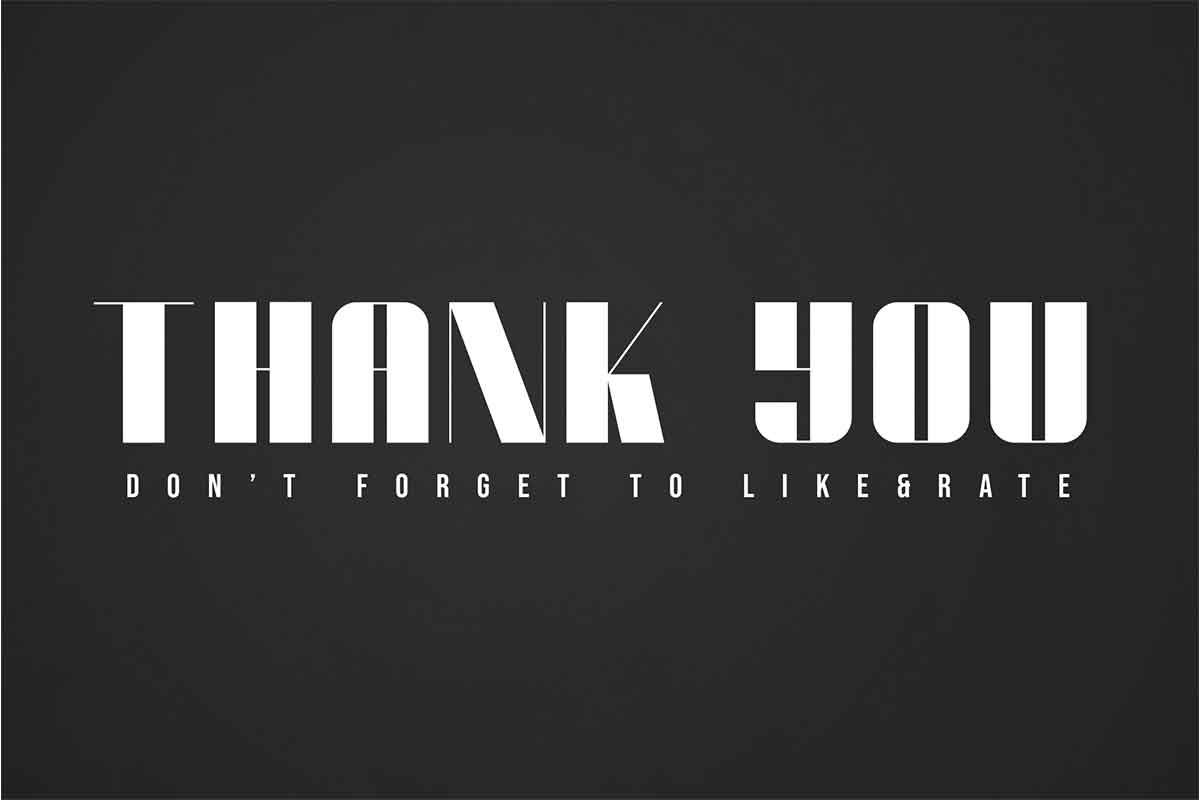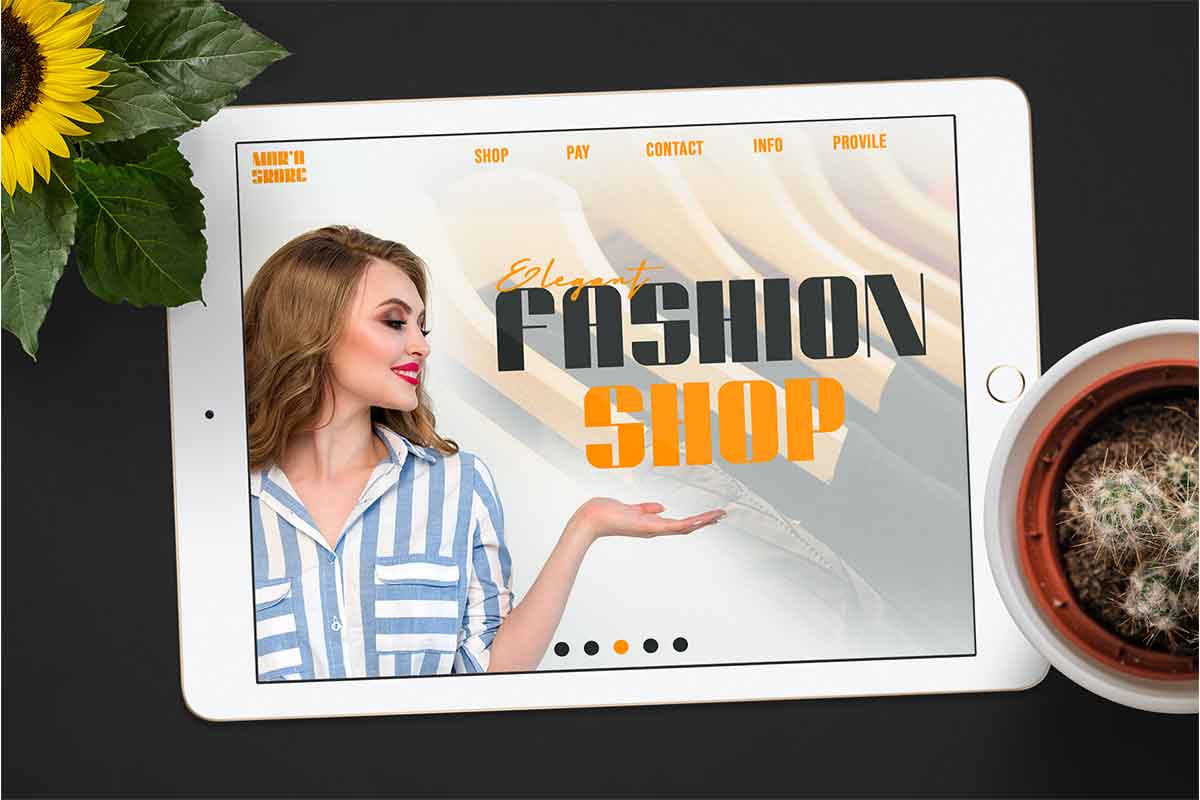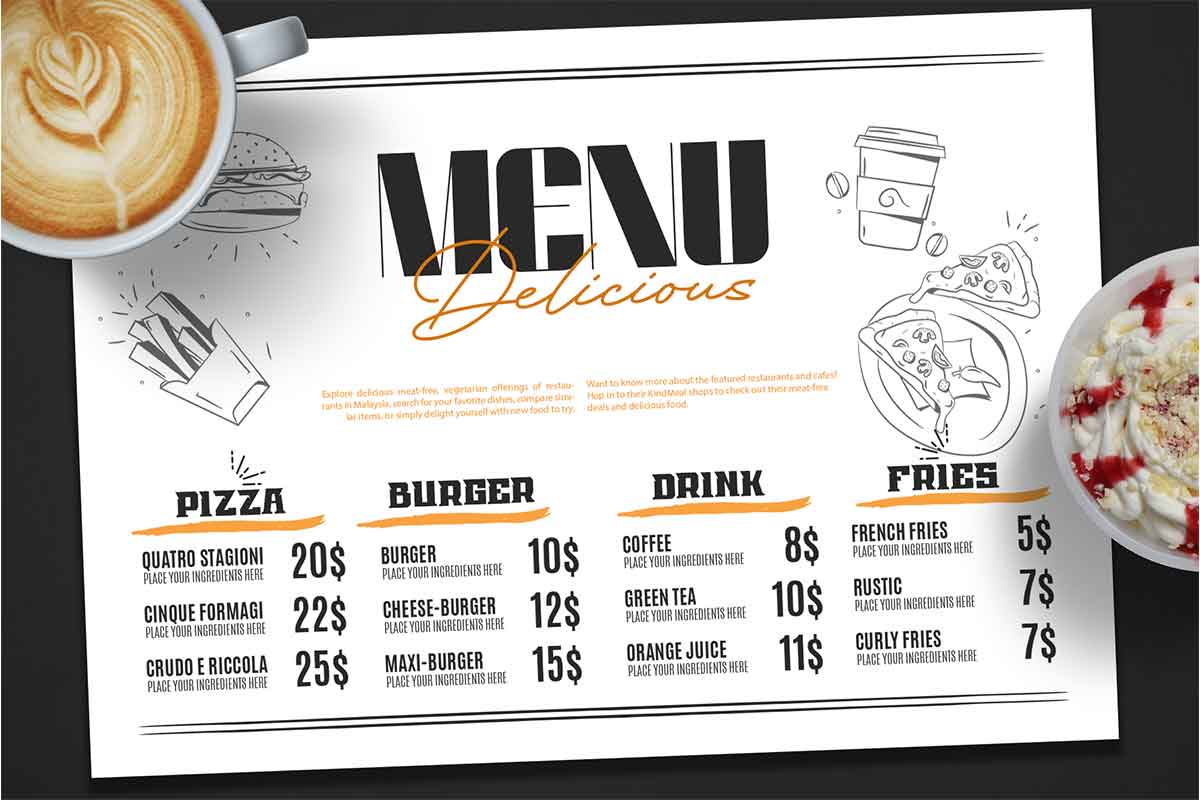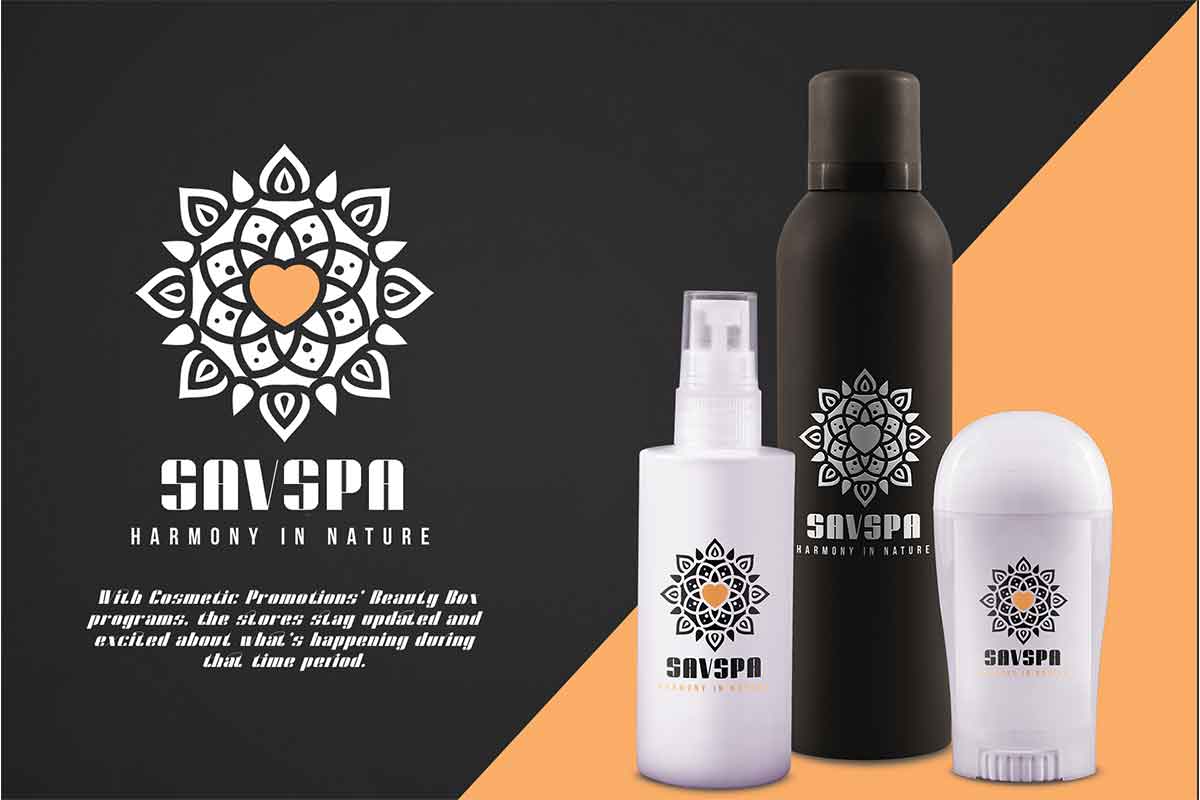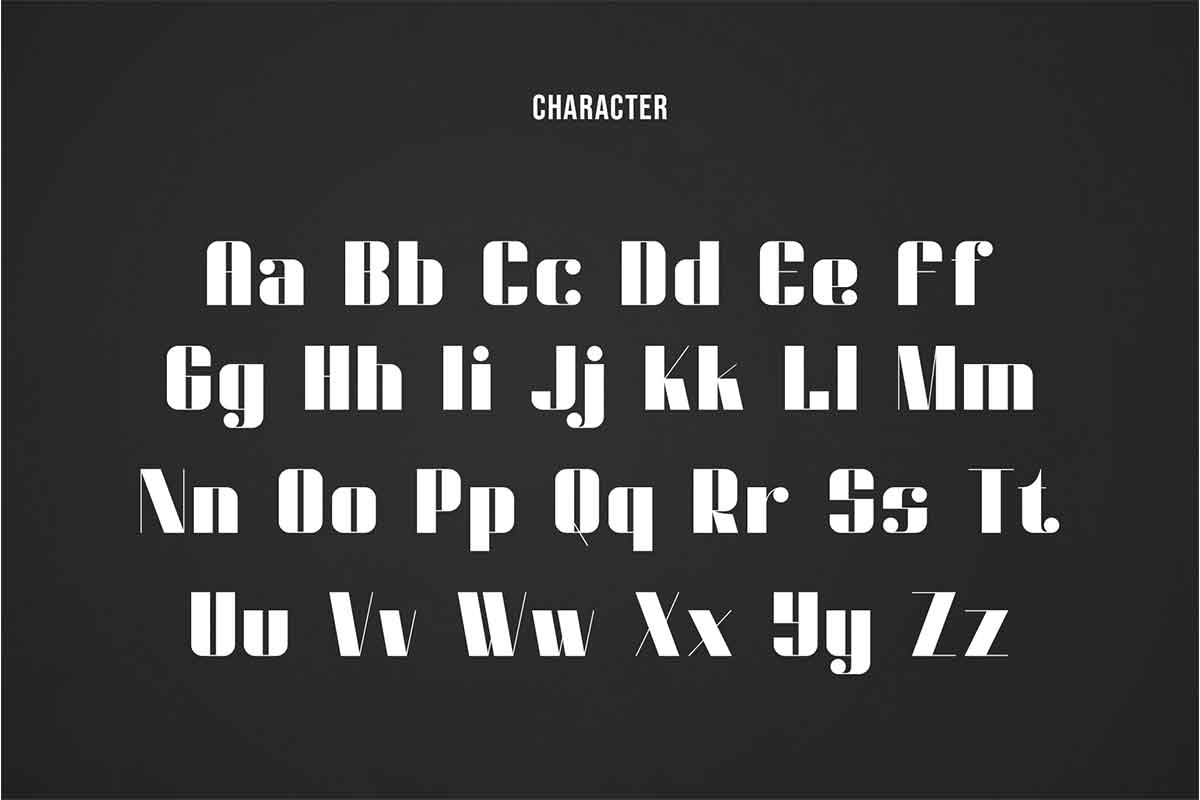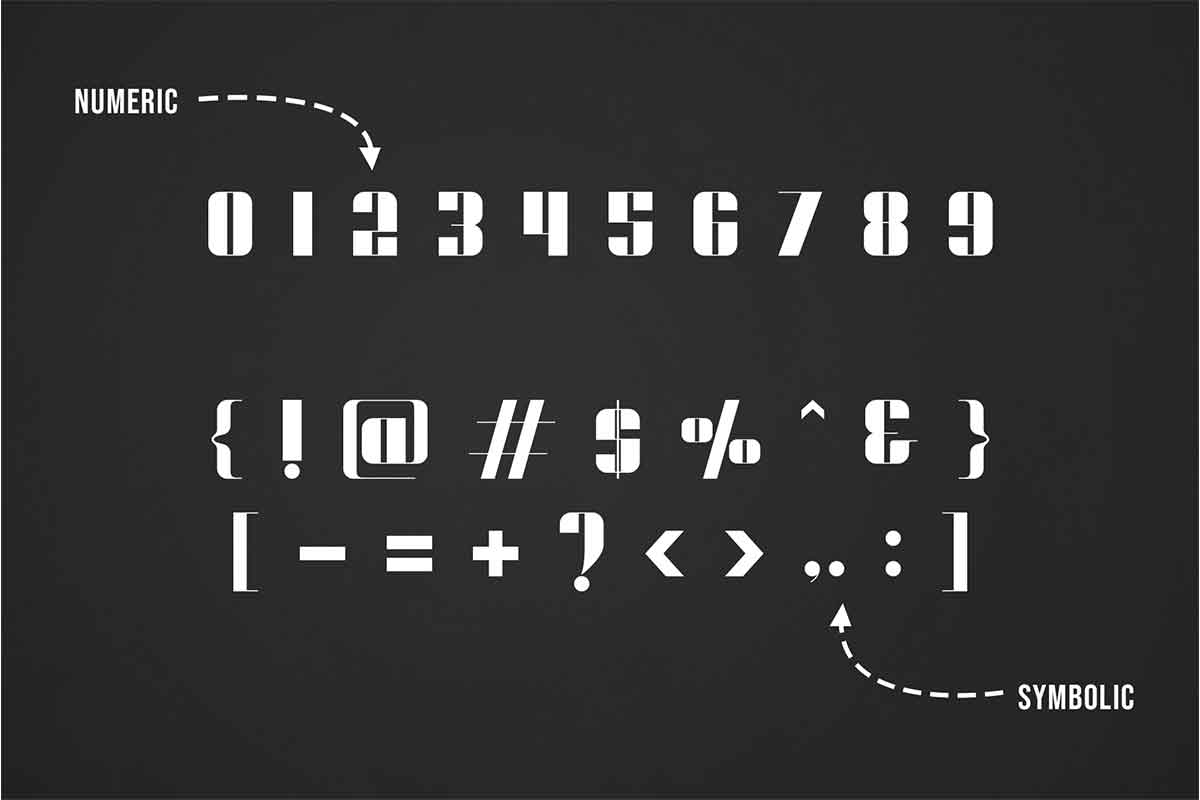
Dunford Moore Font Dunford Moore Sans Serif Font is one of our Sans Serif fonts. If you want a sans-serif font that is readable and easy to work with, you should consider choosing a Dunford Moore Sans Serif Font for your project. Dunford Moore Sans Serif Font is a clean and simple font with a very minimalistic style. This font is a modern and bold font. You can use this font as a digital and print font, such as for magazines, posters, and flyers. You can also use Dunford Moore Sans Serif Font for branding purposes, such as creating logos or taglines for brands, brand packaging, and advertising. Some examples of products include; business cards, invitations, and placemarks. Make sure typeface size must be considered in its application. Dunford Moore Sans Serif Font gives a modern and cool impression when you look at it. No doubt, this font is suitable for various social media platforms. Our Sans Serif font collection is compatible to use as Figma fonts, Canva fonts, Freepik Fonts, and Adobe Fonts. They also work as Windows Fonts and Apple Fonts. For your social media needs, you can use and install fonts in our Sans Serif font collection to use as Instagram Fonts, Facebook Fonts, and Twitter Fonts.